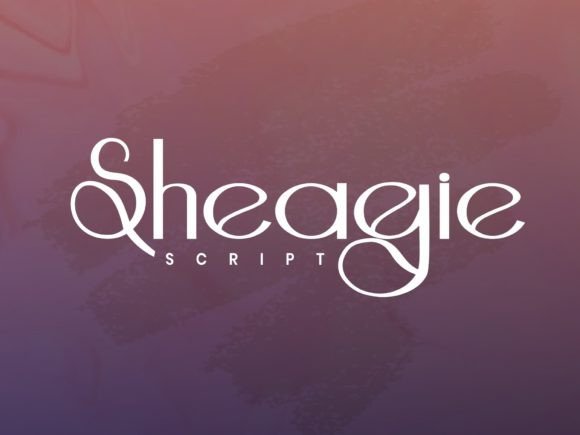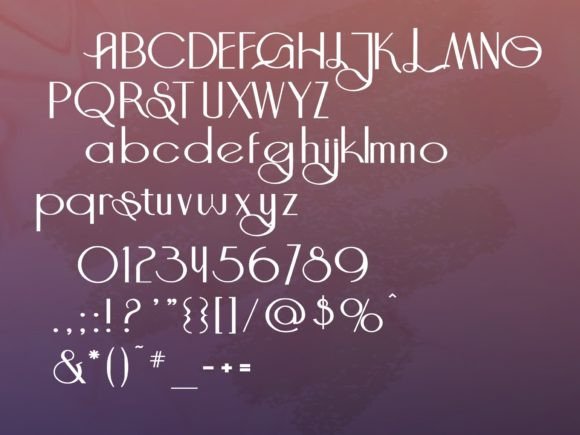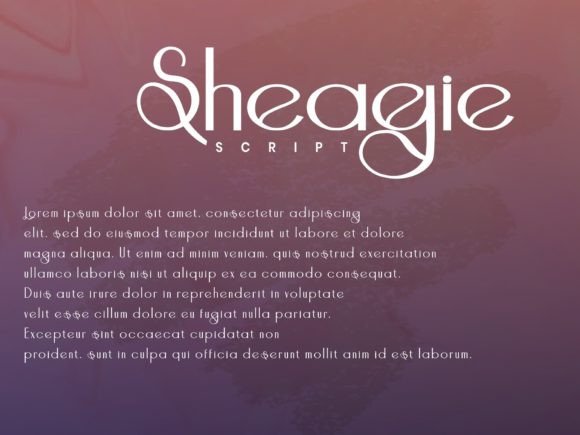
Sheagie Script Font
Discover the Unique Charm of Sheagie Script Font
Sheagie Script Font is a distinctive and stylish handwritten typeface that adds personality and flair to your creative projects. Its unique design captures the beauty of natural handwriting, making every project feel personal and artistic. Whether you’re creating logos, invitations, or crafting digital artwork, Sheagie Script Font brings a fresh and elegant touch.
This font stands out for its combination of playful curves and refined strokes, allowing your designs to express both creativity and sophistication.
Perfect for Various Creative Projects
Sheagie Script Font is ideal for a wide range of applications, including:
• Logo and brand design
• Handmade crafts and DIY projects
• Invitations and greeting cards
• Social media graphics and posts
• Product packaging and labels
• Posters, flyers, and promotional materials
Its distinctive handwritten style makes your work memorable and engaging, while maintaining readability and balance.
The font features well-spaced characters and smooth kerning, ensuring that your text looks clear and beautiful at any size.
Why Designers Choose Sheagie Script Font
Designers and creatives appreciate Sheagie ScriptFont for its unique style and versatility. It provides a modern yet handcrafted feel that fits well in both casual and formal projects. Whether you’re a professional or a hobbyist, this font enhances your work by adding a touch of individuality and elegance.